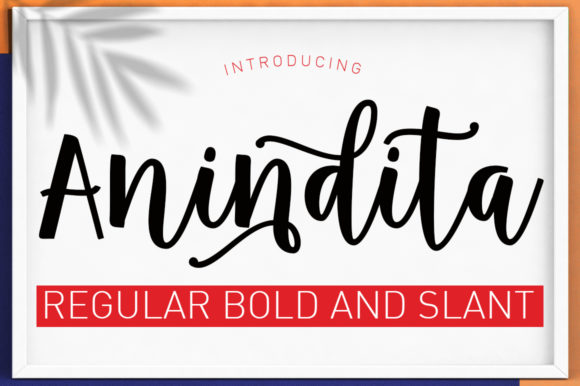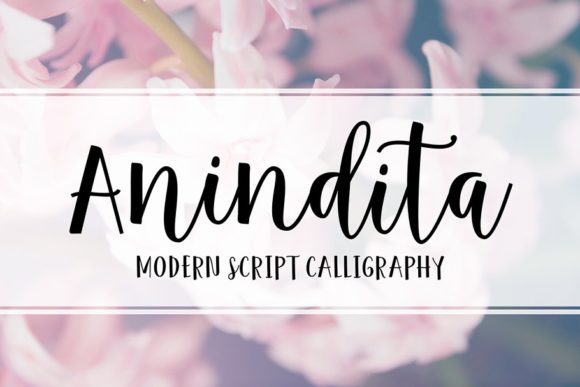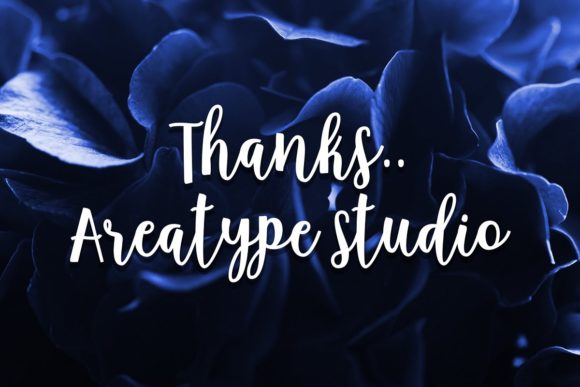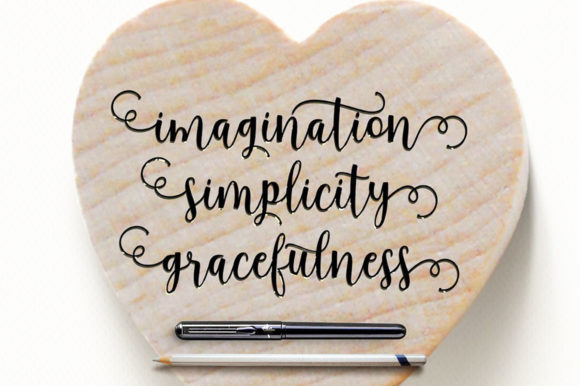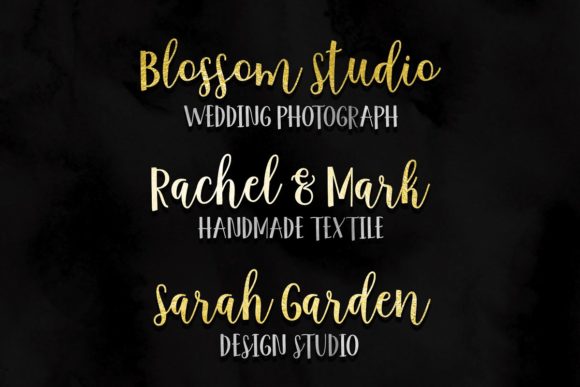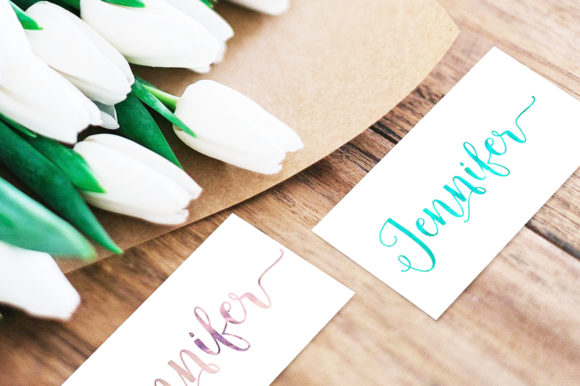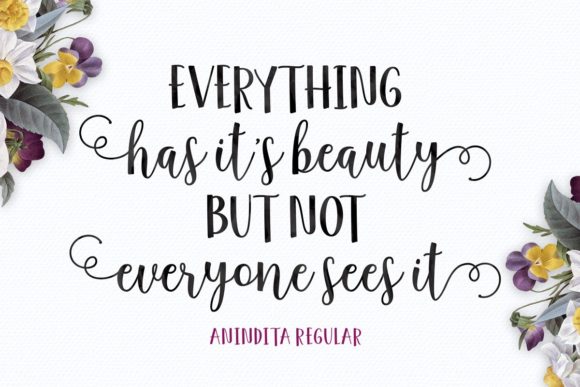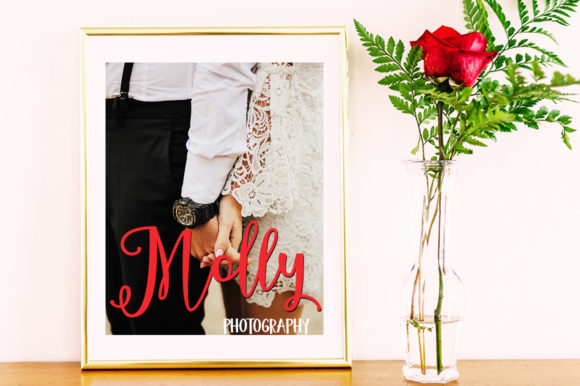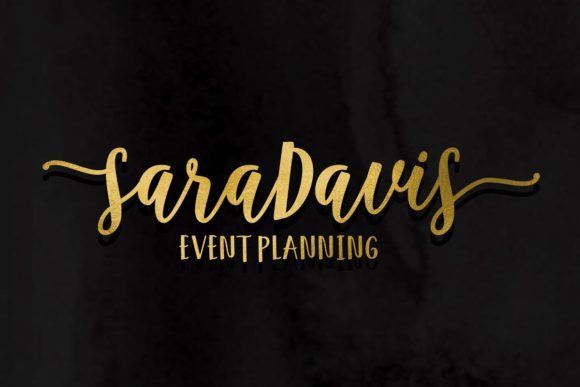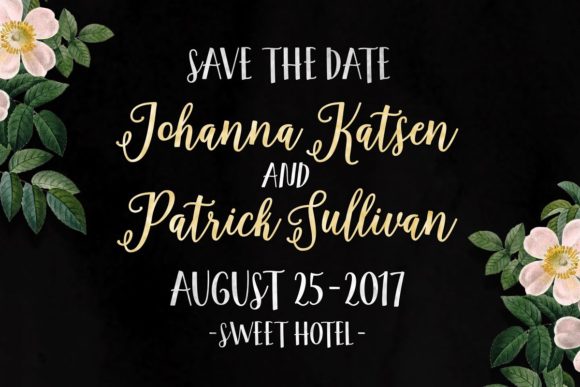
HomeScript FontsAnindita Font Script Fonts Anindita Font FacebookXPinterestWhatsApp Anindita Font Poster 2 Anindita Font Poster 3 Anindita Font Poster 4 Anindita Font Poster 5 Anindita Font Poster 6 Anindita Font Poster 7 Anindita Font Poster 8 Anindita Font Poster 9 Anindita Font Poster 10 Anindita Font Poster 11 About Anindita Font Anindita is a playful and cute script that’s full of charm. Use it to add a magical feel to any design project. DOWNLOAD ON CREATIVE FABRICAThis font is sold and delivered by Creative Fabrica. Font Canyon may earn a commission if you buy through this link. People also explored Evolution Font lobster Parkchester Script Font Virtual Font Vastain Font Bastian Font Eels Font Welcome September Font Coolvetica Font 338 0 TagsAnindita Font Previous articleBattikaja FontNext articleHeartbeat Family Font LEAVE A REPLY Cancel reply Comment: Please enter your comment! Name:* Please enter your name here Email:* You have entered an incorrect email address! Please enter your email address here Website: Save my name, email, and website in this browser for the next time I comment. Personal Use Free Rollayka Personal Use Free Read more about this font Propaniac Personal Use Free Read more about this font December Christmas Personal Use Free Read more about this font Round Geometric Personal Use Free Read more about this font BLOG 5 Fonts That Will Dominate Design Trends in 2026 5 Fonts for 2026 That Will Dominate Design Trends Typography plays a critical role in visual communication, and as we look ahead to 2026, it’s... Free Fonts Risk: Why Free Fonts Can Be Dangerous for Designers Exploring Font Trends Free vs Paid Fonts: Why Investing in Premium Fonts Is Worth It